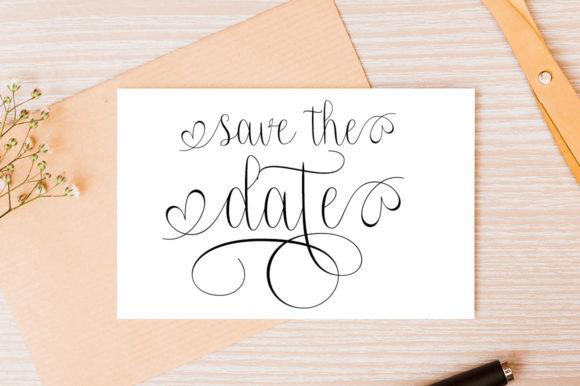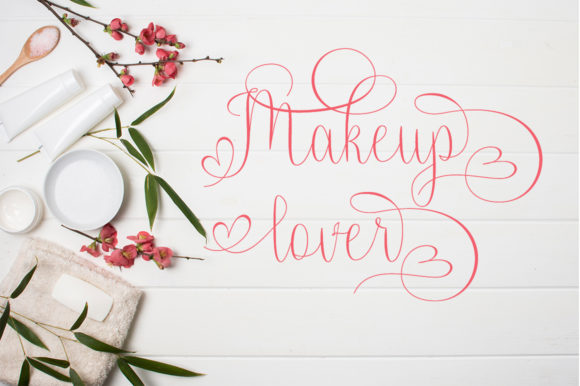
Amrelia Font
db-ku.com - Script & Handwritten -- Amrelia is a sweet, soft hand-lettered handwritten font. The playful rounded characters make it the perfect font for creating fancy calligraphy art. Amrelia comes packed with heart-themed swashes, that will allow you to add a decorative touch within seconds. Get inspired by its authentic feel and use it to create gorgeous wedding invitations, beautiful stationary art, eye-catching social media posts, and cute greeting cards.